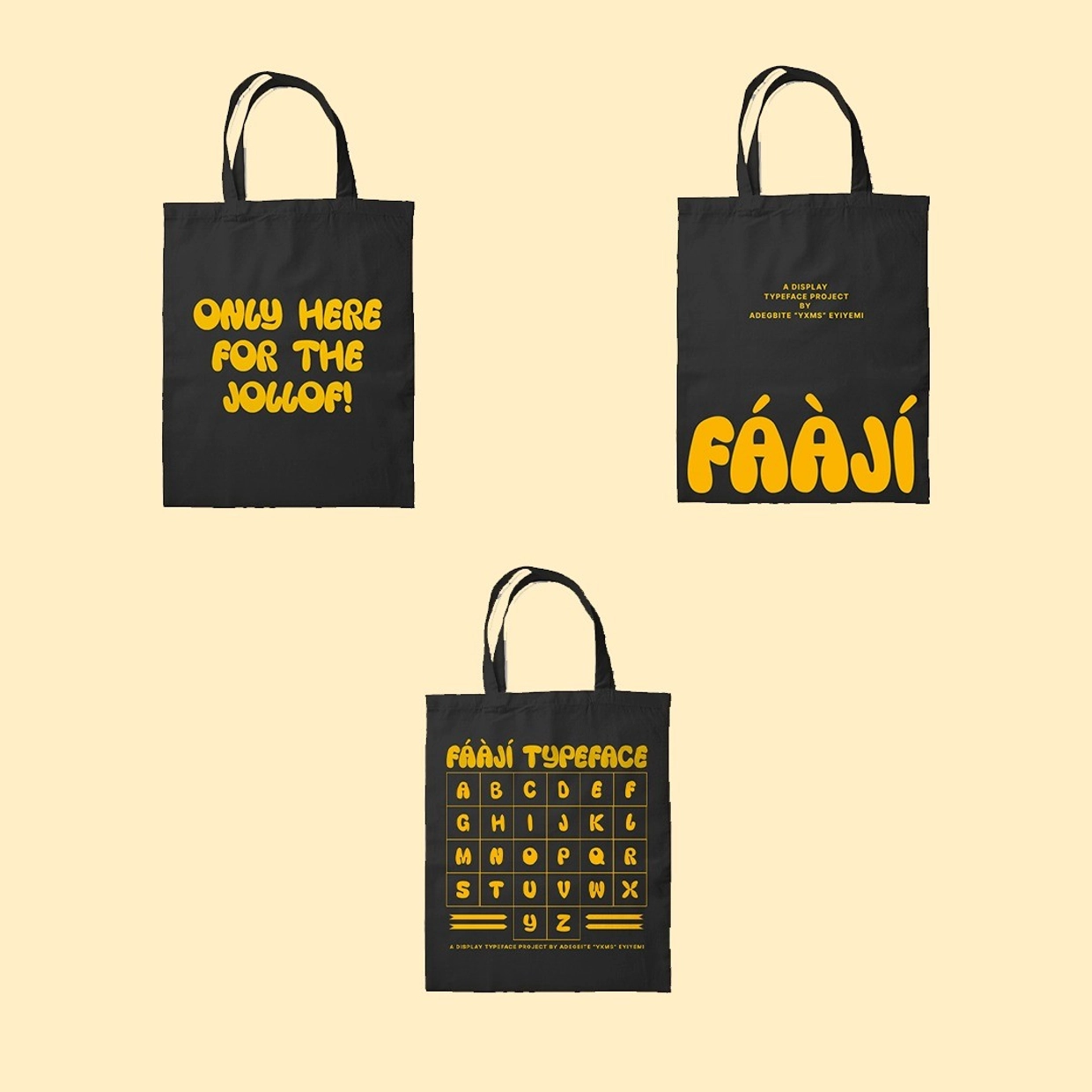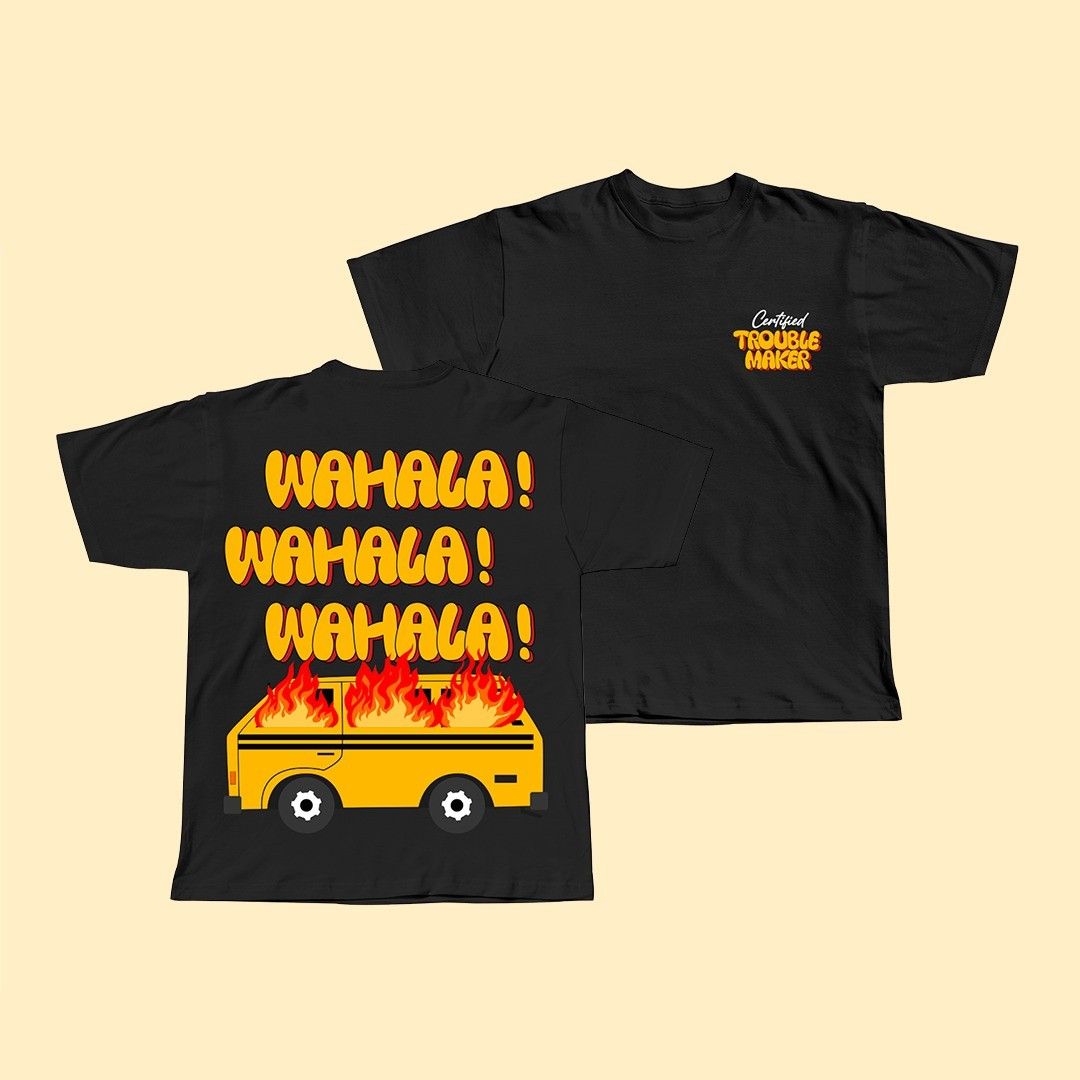
Eyiyemi Adegbite perfectly captures the essence of the Lagos we know with his Faaji Typeface. It brings a lively and energetic typography to the forefront, just like the ones painted on the brick walls and the cut-out stickers on your favourite Napep. The font is perfect for adding a touch of Lagos to any design. Check out more of his type design journey and get inspired by his many creations and experiments. Follow @eyiyemi.x for more updates and behind-the-scenes looks at his work.